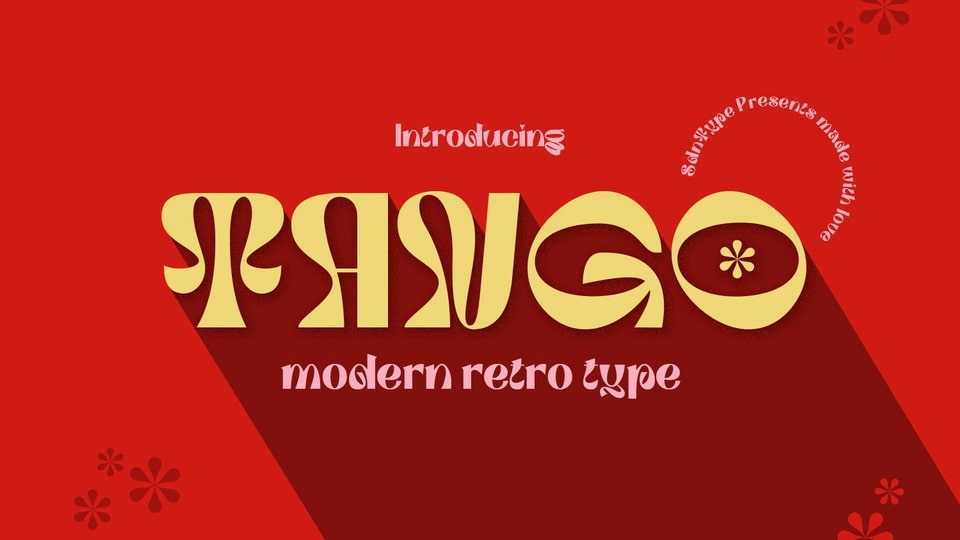
Download Tango font, a fancy modern display typeface with retro vibes. Use Tango font for any branding, product packaging, invitation, quotes, t-shirt, label, poster, logo etc.